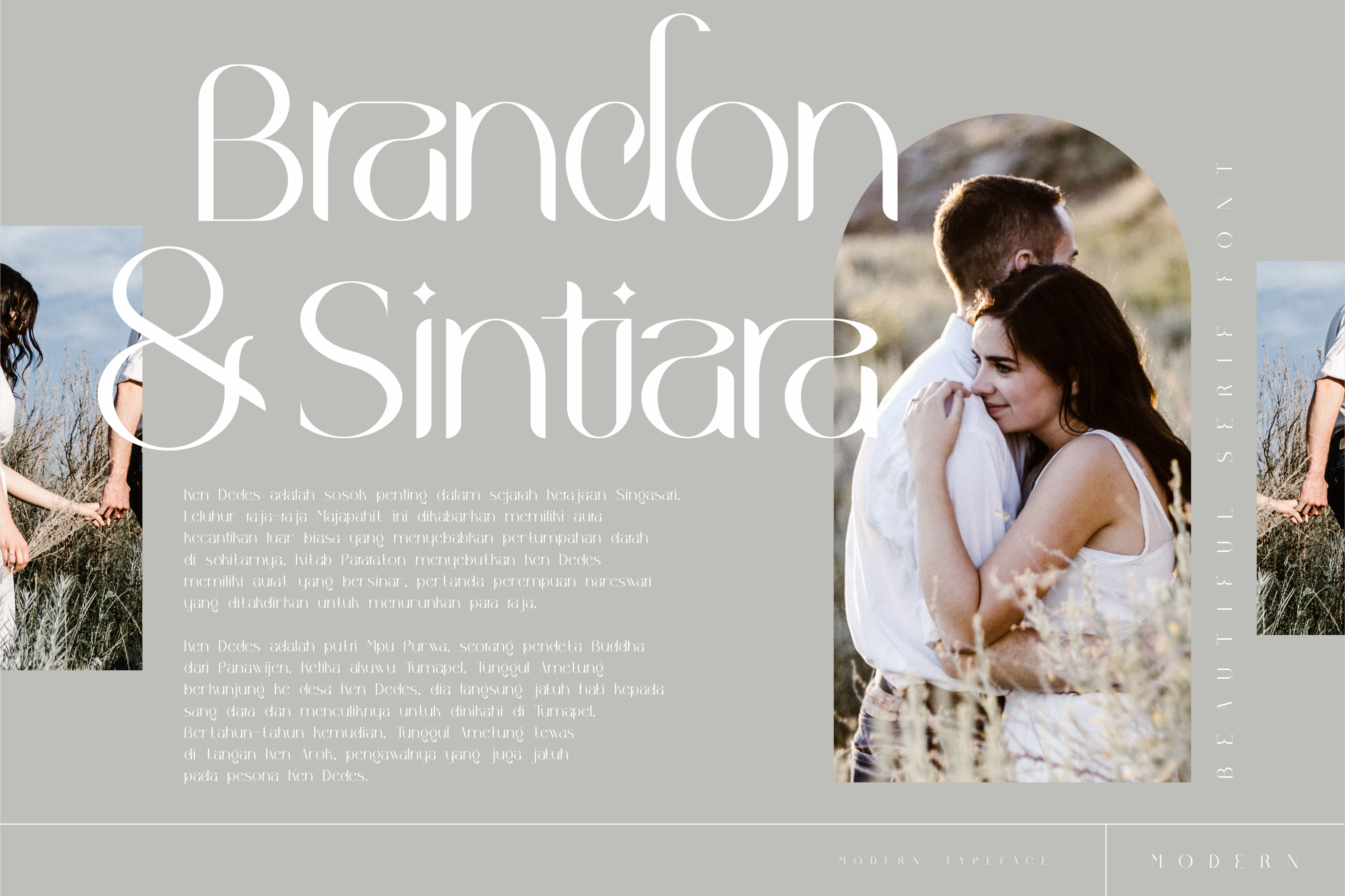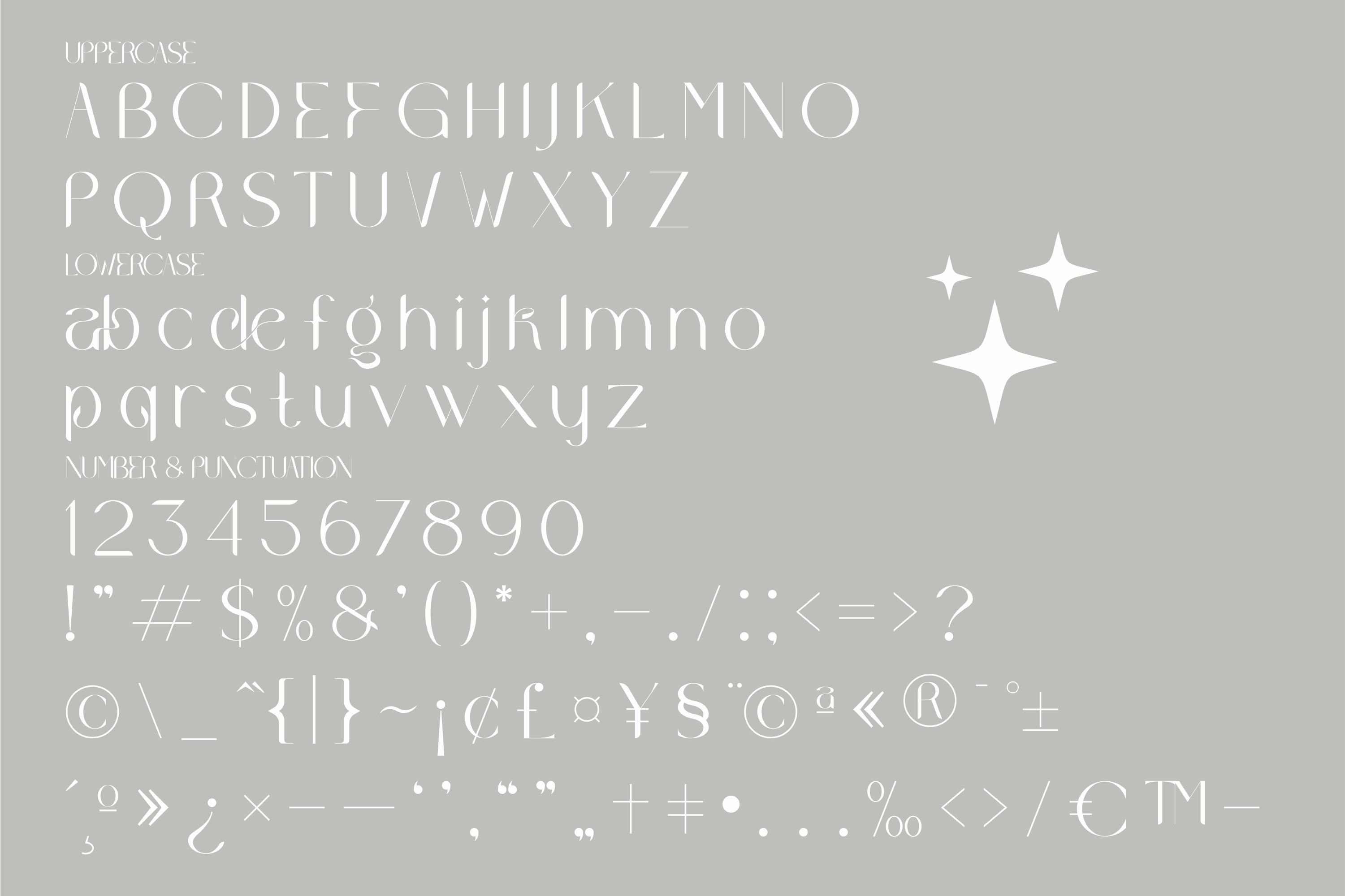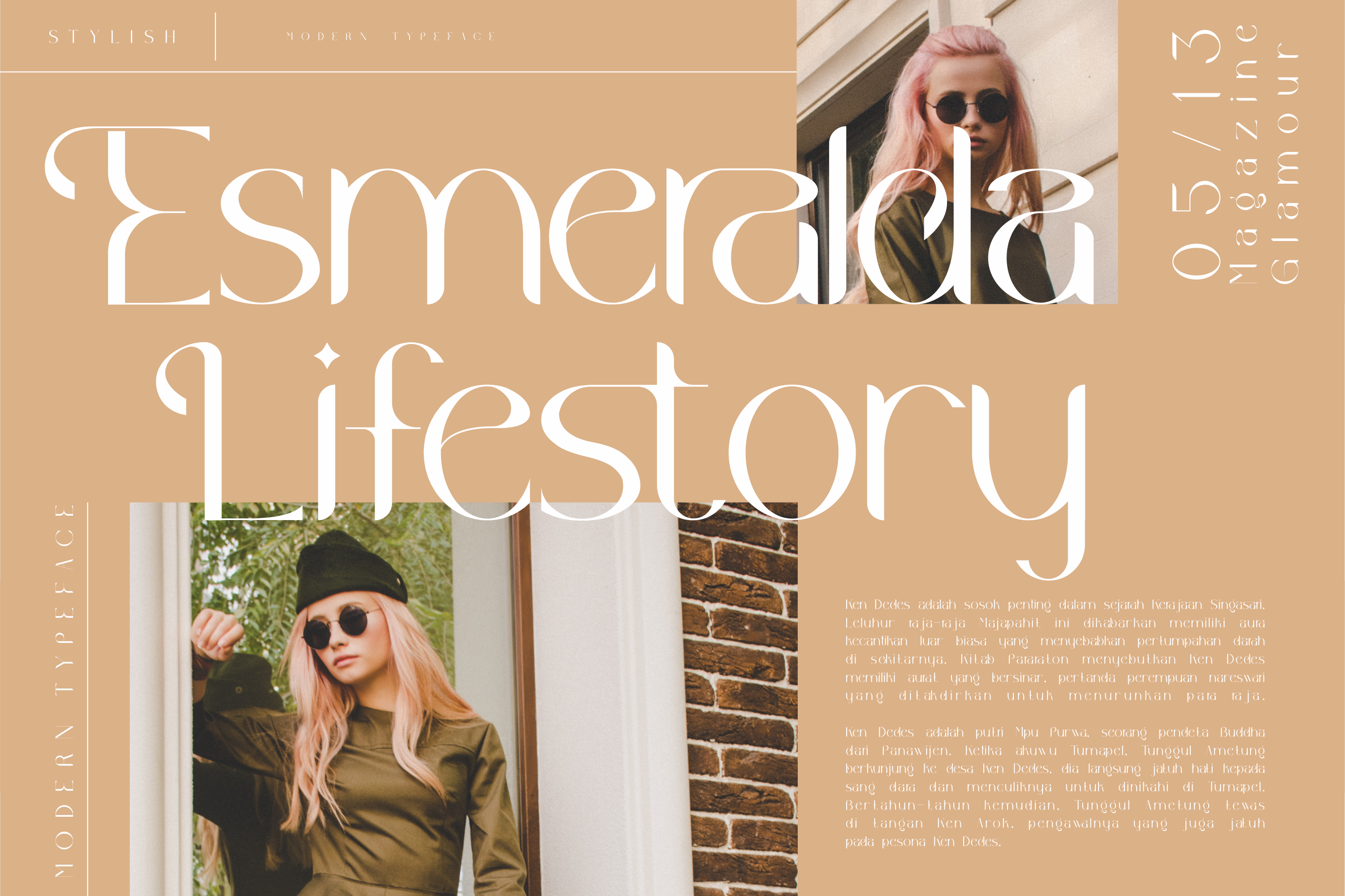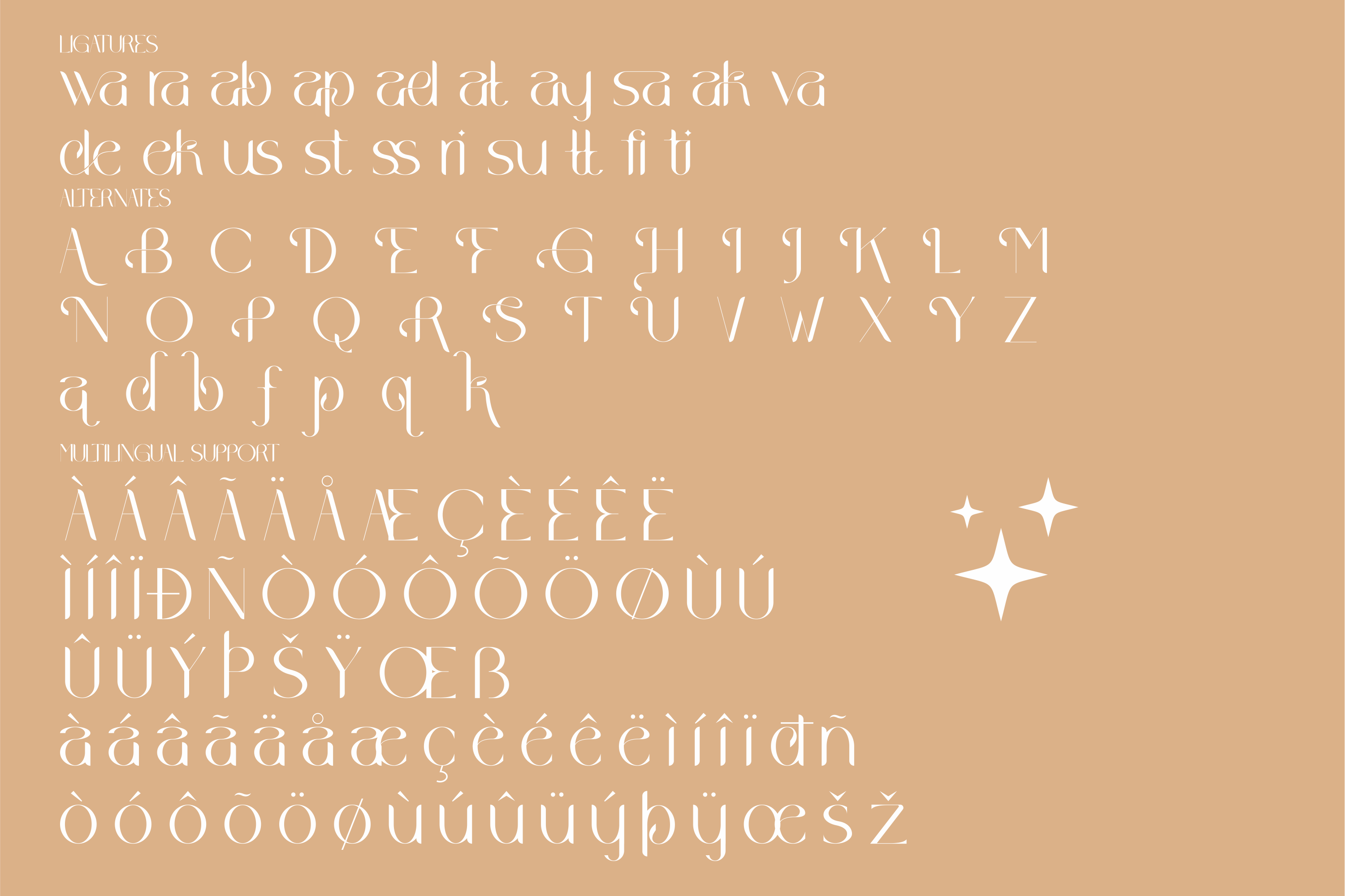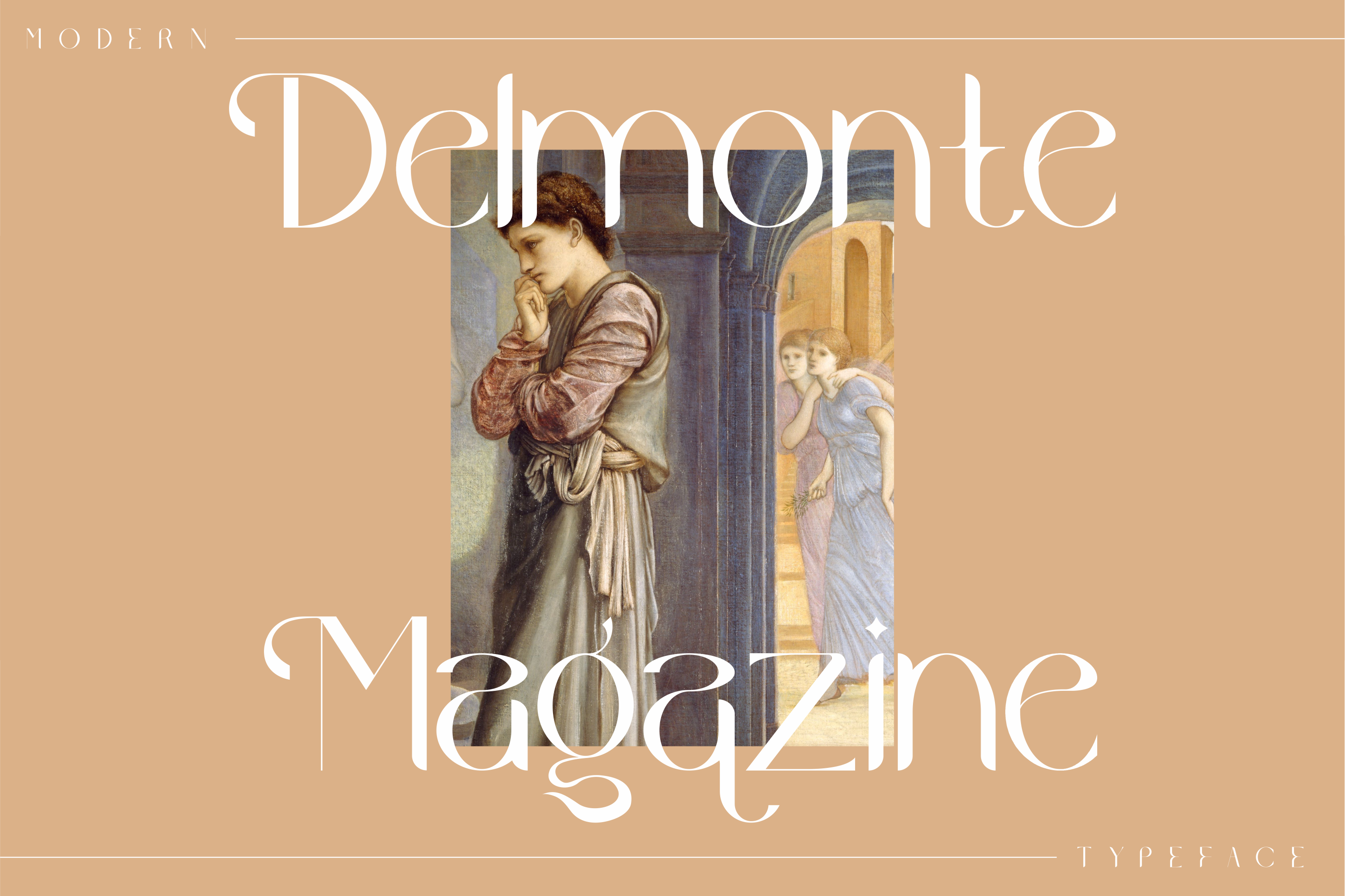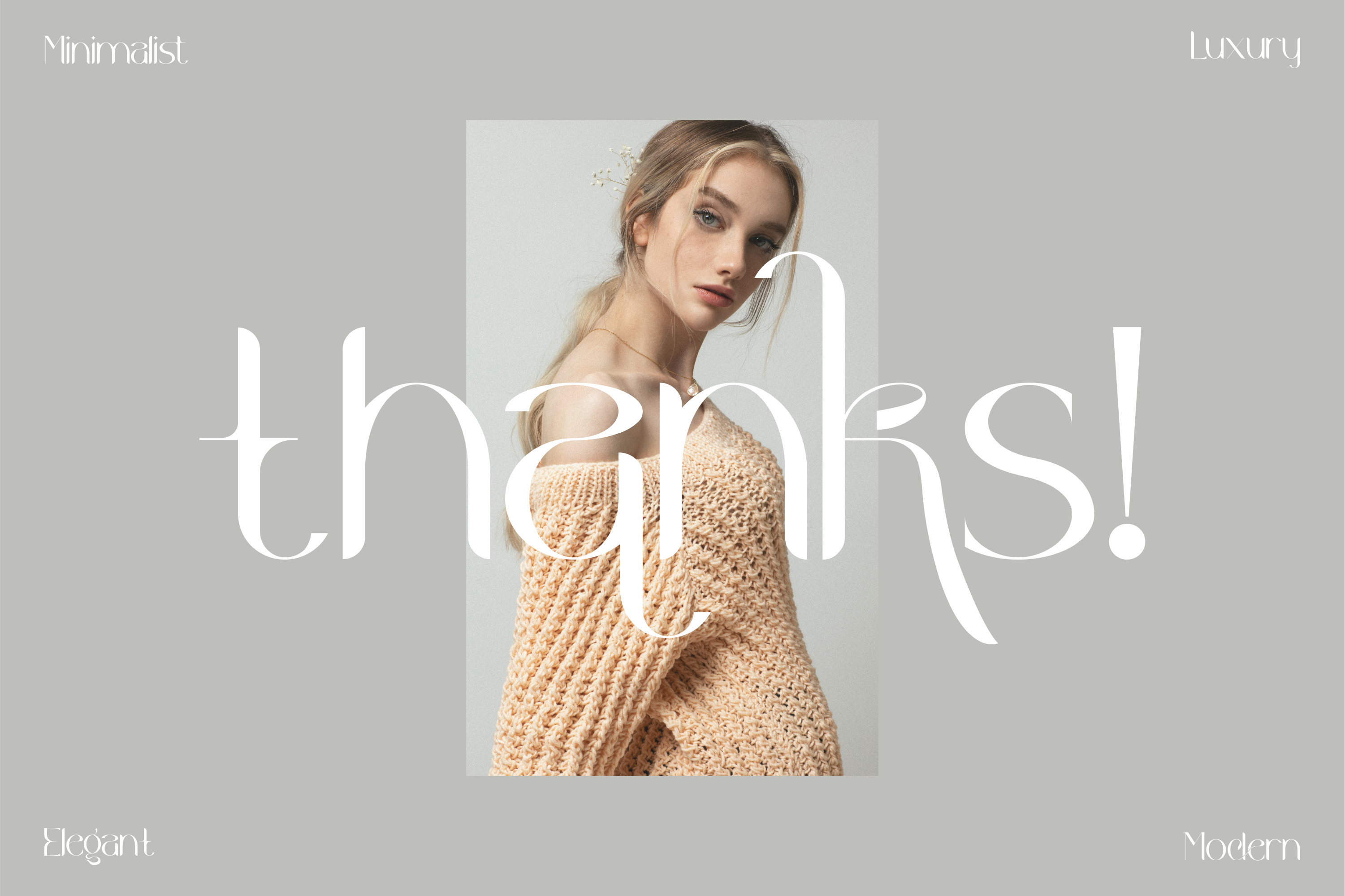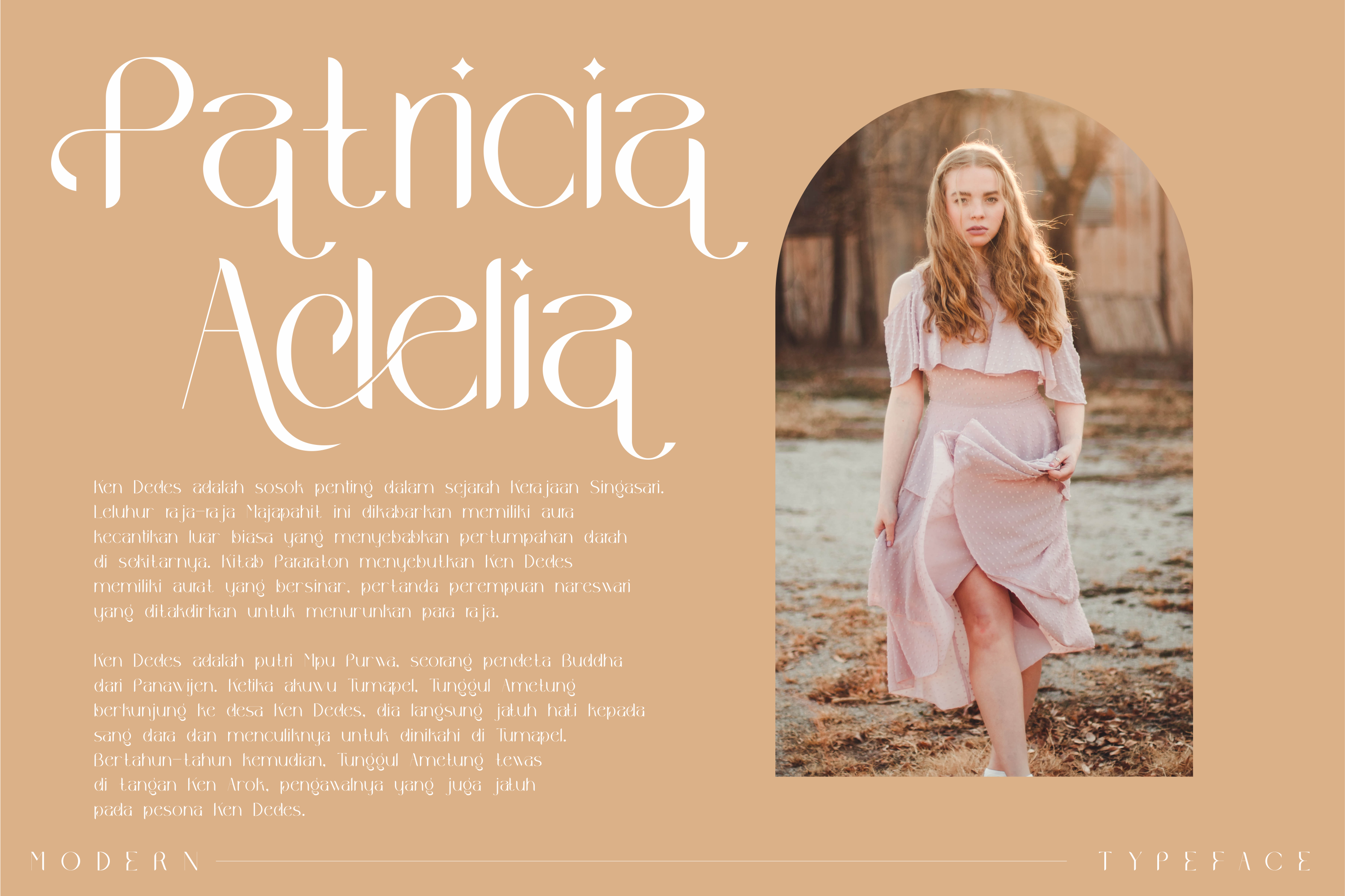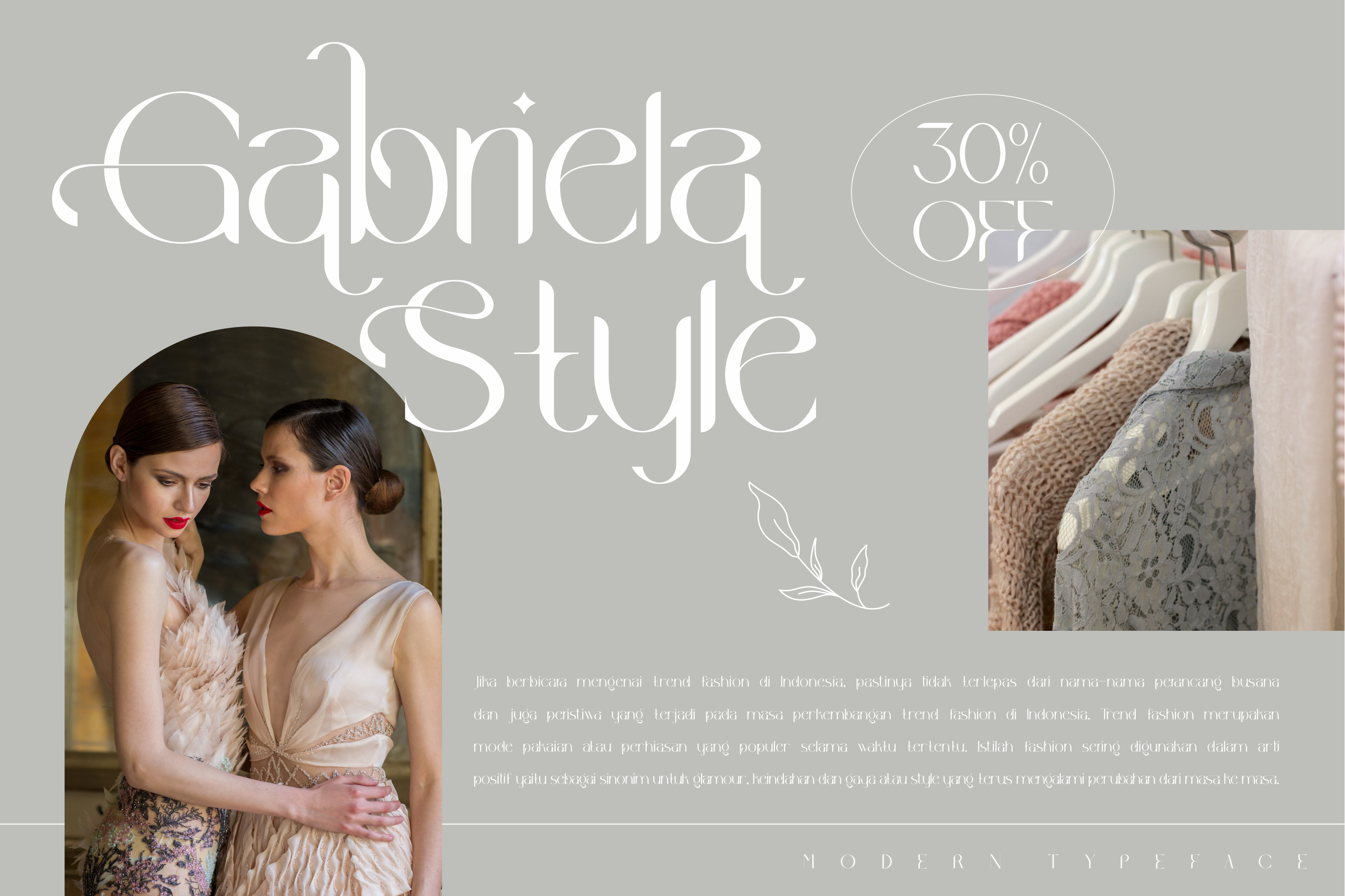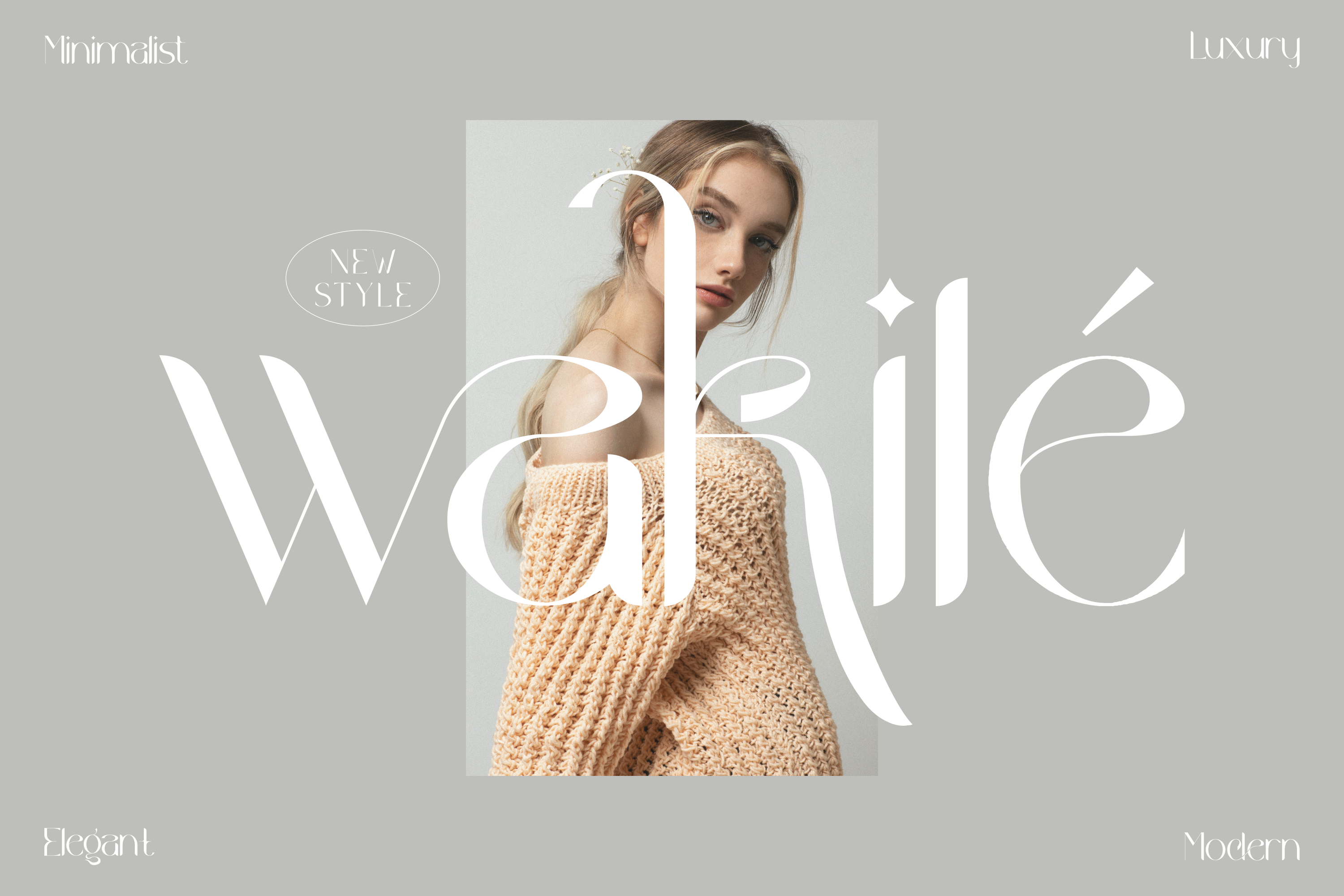
Wakile Stylish Serif Font by Storytype Studio | Creative Market
Mega Bundle From Storytype Studio! -100+ Modern And Minimalist Serif Font Bundle : https://crmrkt.com/rGgRz0 -50+ Modern And Minimalist Serif Font Bundle : https://crmrkt.com/RNmdOd - Proudly present Wakile Typeface, created by Storytype, A serif modern and classic typeface that has own unique style & modern look. This typeface is perfect for an elegant & luxury logo, book or movie title design, fashion brand, magazine, clothes, lettering, quotes, and so much more. - Product Content : - TTF - OTF - WOFF Features : - Uppercase and Lowercase - Numerals - Punctuations (OpenType Standard) - Accents (Multilingual Characters) - Ligatures and Alternative Style Stylistic Set - Works on PC and Mac - Simple installations Thank You. | Wakile Stylish Serif Font | Storytype Studio